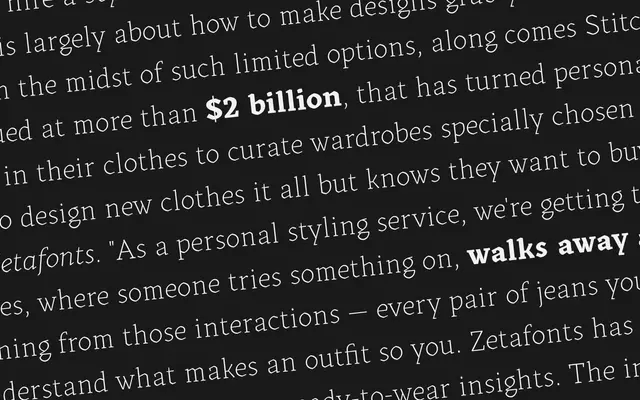
Kitsch
Zetafonts · Francesco Canovaro, Andrea Tartarelli, Maria Chiara Fantini · 2019
A high-contrast calligraphic typeface crossing classical roman proportions with broad-nib gothic letterforms, available in display and text optical cuts across eight weights.
Designed by Francesco Canovaro with Andrea Tartarelli and Maria Chiara Fantini, Kitsch draws on the broad-nib pen to bridge classical roman skeletons and medieval gothic scripts without directly quoting historical models such as Rotunda or Bastarda. The result is a spiky, high-contrast face that works at poster scale in its display cut, while the separately tuned text version preserves that expressivity down to smaller sizes. All 32 styles cover Latin, Greek and Cyrillic across 218 languages, and OpenType features include small caps, positional numerals, stylistic alternates and discretionary ligatures.
Kitsch merges classical roman proportions with broad-nib calligraphic strokes derived from medieval gothic letterforms, producing high contrast and spiky details that place it firmly in the display category with a calligraphic subcategory.